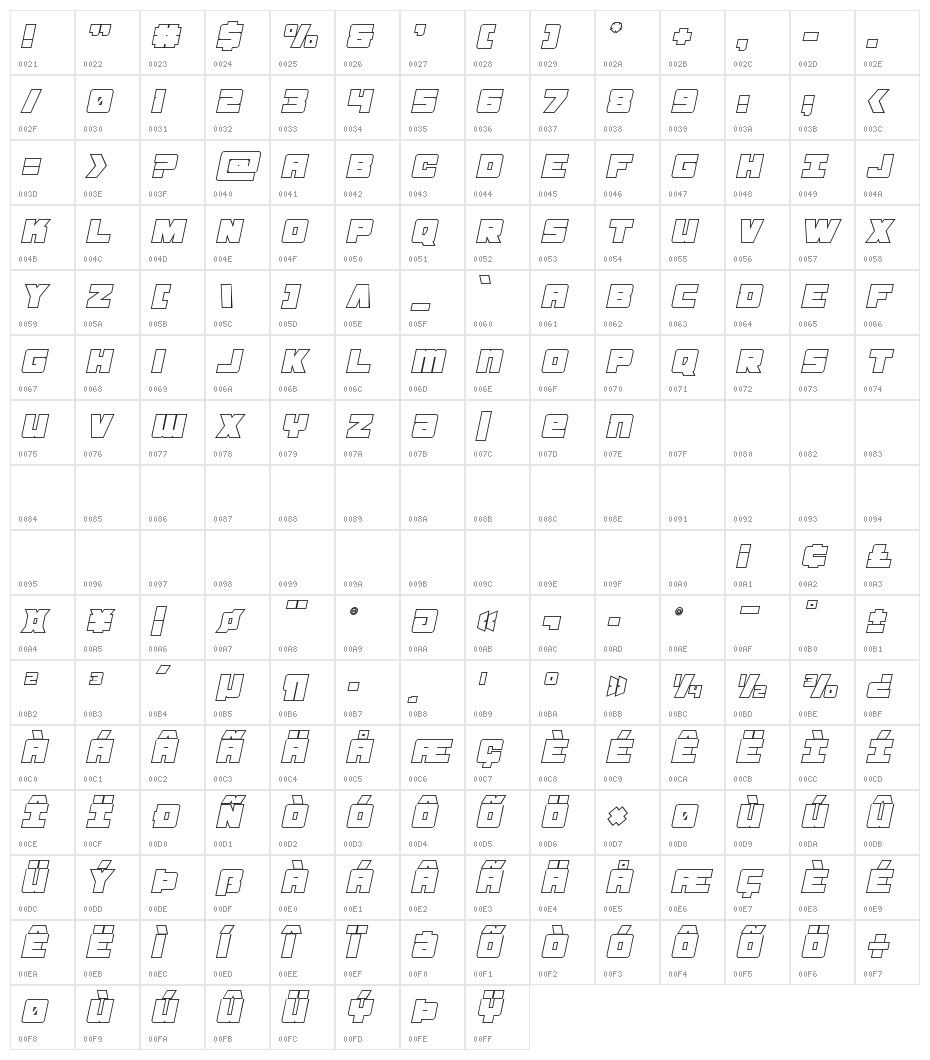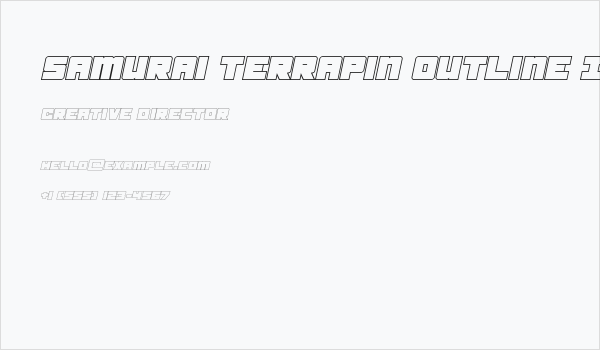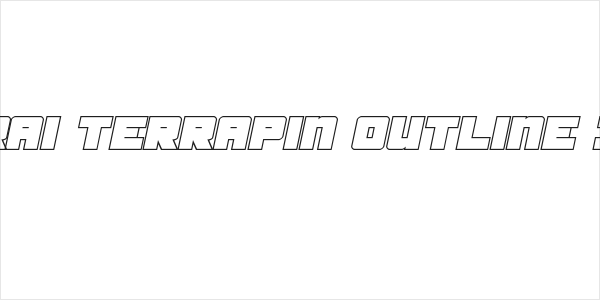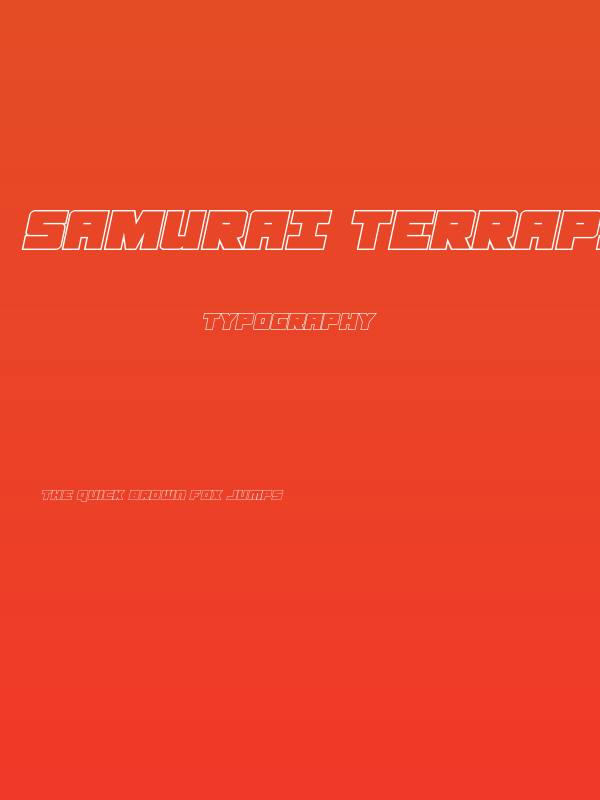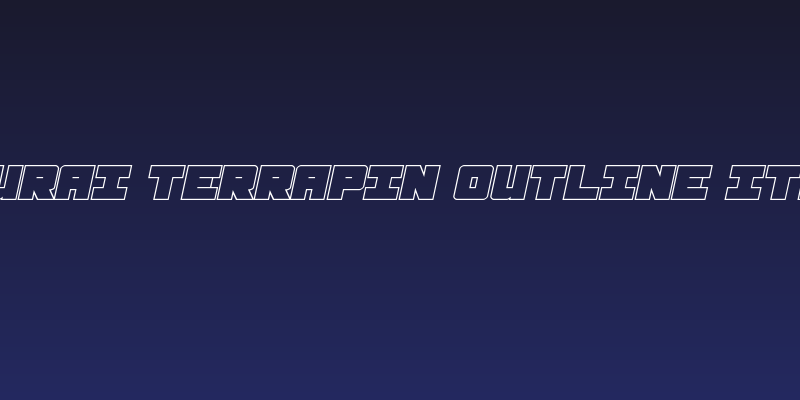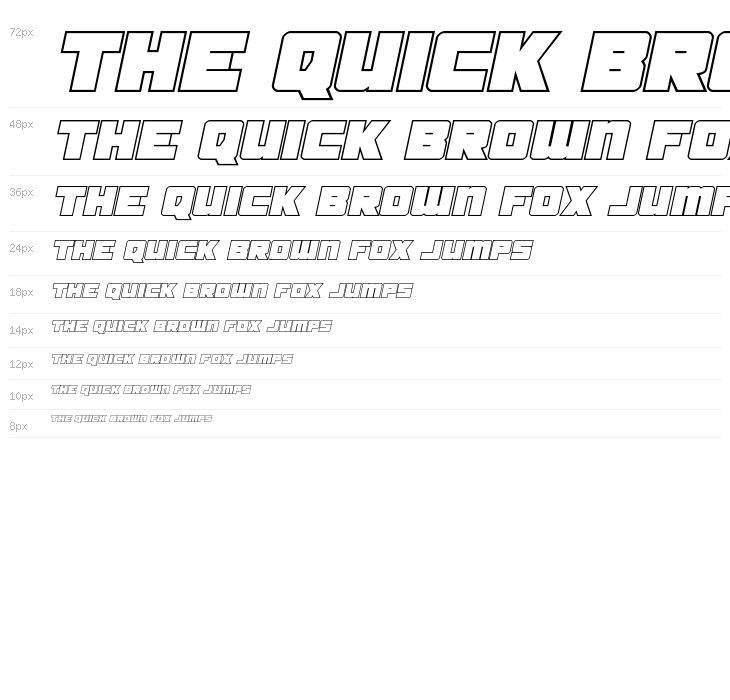
Samurai Terrapin Outline Italic Font
Samurai Terrapin Outline Italic Description
This font features a bold, geometric outline style with an italic slant, giving it a dynamic and modern appearance. The characters are constructed with thick, uniform strokes that form a distinct, blocky shape. The outline effect adds depth and a three-dimensional quality, making it stand out in any design. The uppercase and lowercase letters maintain a consistent style, while the numbers and special characters complement the overall aesthetic. This font is ideal for projects that require a strong, impactful visual presence.
| Proposed Projects | Ideal for branding, posters, headlines, and any design needing a bold statement. |